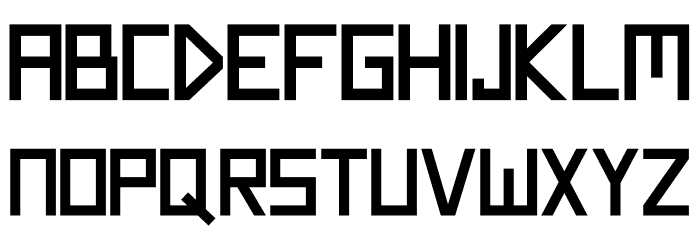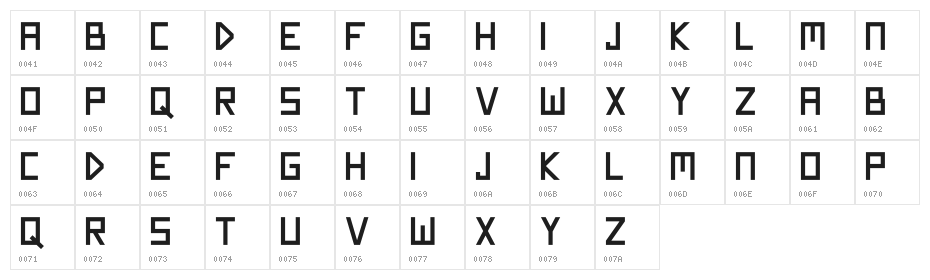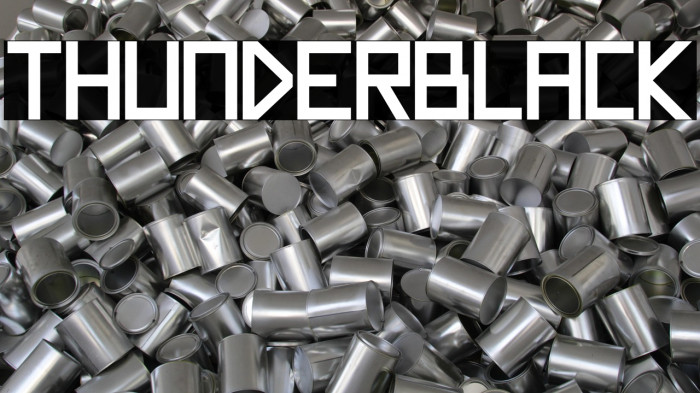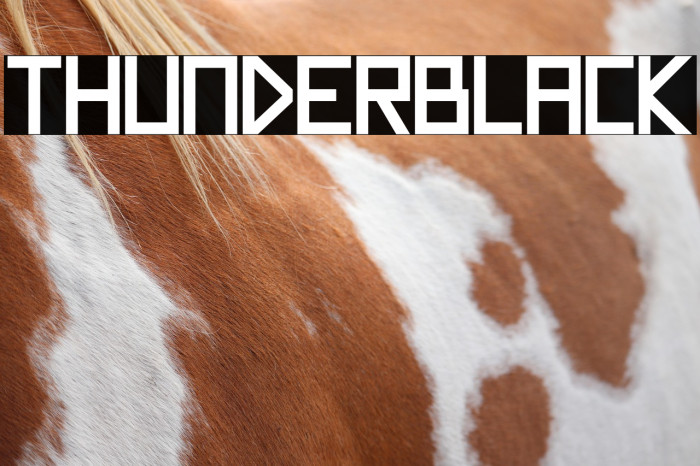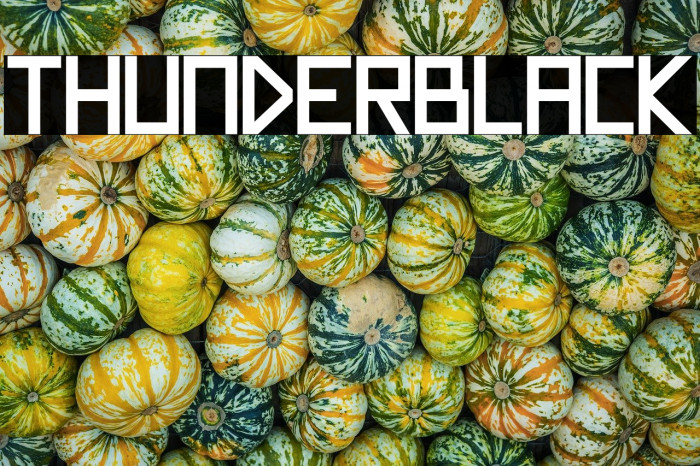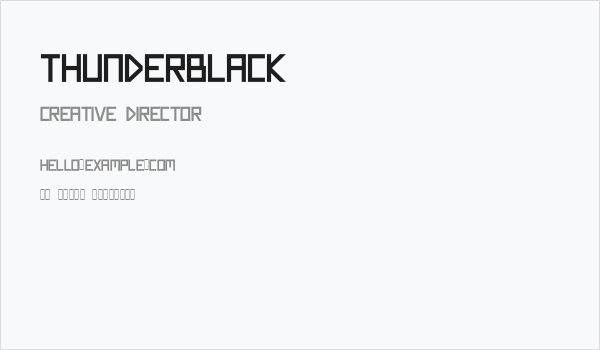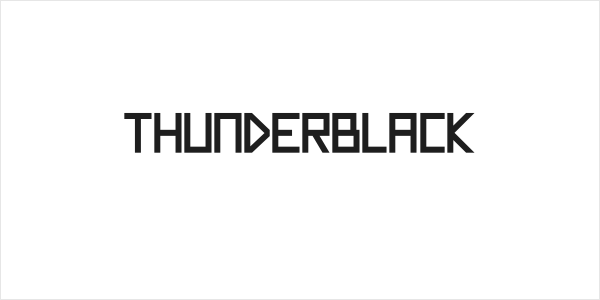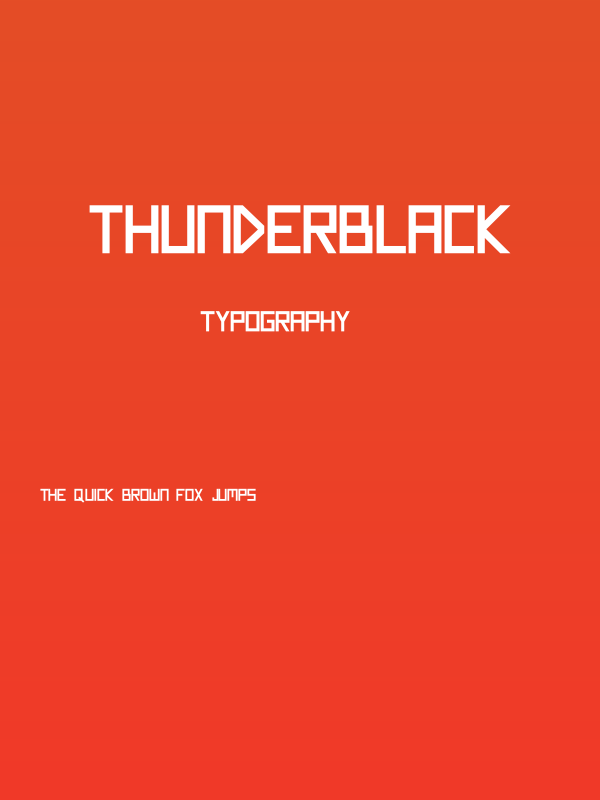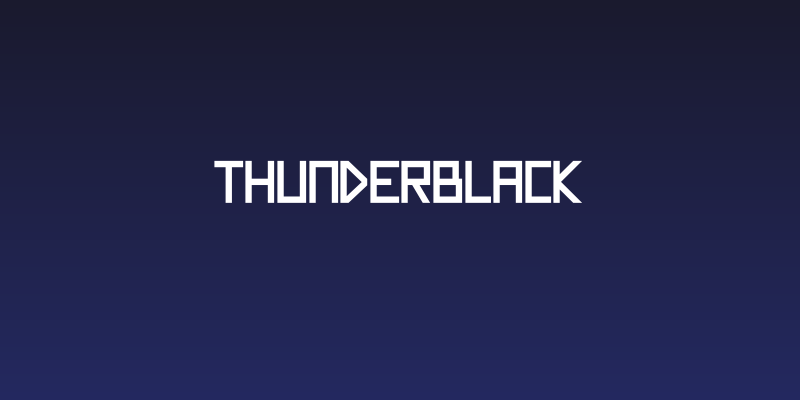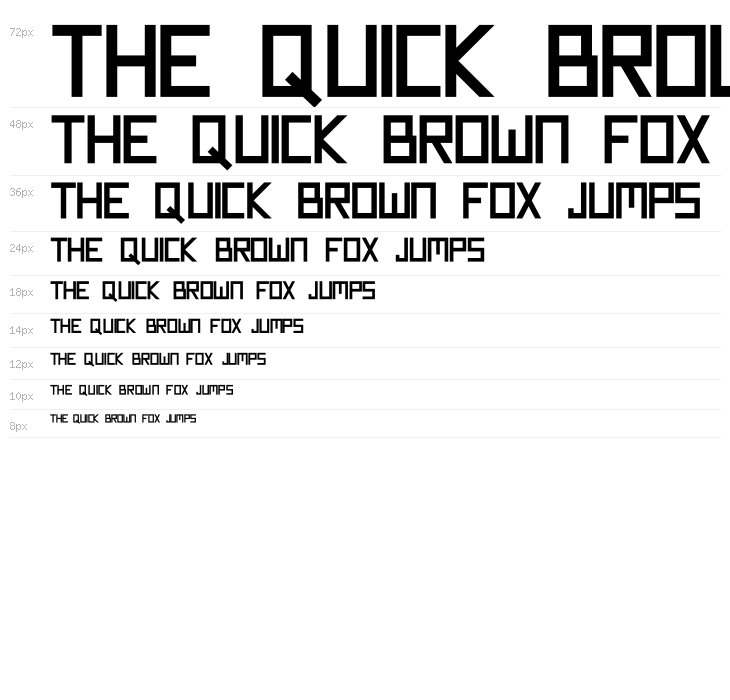
Thunderblack Font
Thunderblack Description
This font features a bold and geometric design with sharp angles and a strong presence. The uppercase letters are crafted with a uniform thickness, creating a sense of stability and modernity. The angular shapes give it a futuristic and edgy look, making it stand out in any design. The characters are tightly spaced, enhancing the compact and cohesive appearance. This font is ideal for projects that require a striking and contemporary aesthetic, such as branding, posters, and headlines. Its unique style makes it suitable for creative and innovative designs.